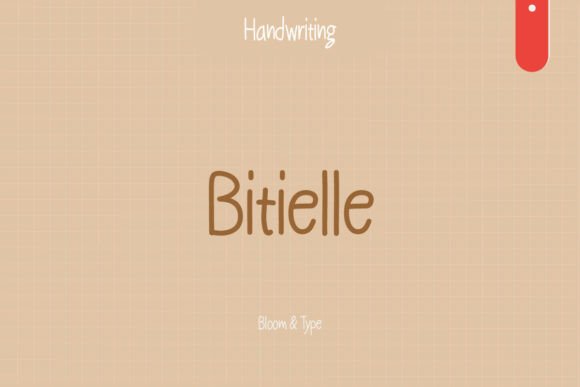
Discover the Charm of Bitielle Font: A Perfect Blend of Simplicity and Warmth
Have you ever been in the middle of a design project, and suddenly, you’re stuck on finding the perfect font? I recall a recent experience where I was working on a branding project for a cozy café, and I just couldn’t find a font that captured the warm and inviting atmosphere I wanted to convey. That’s when I stumbled upon Bitielle Font, and it instantly became my go-to choice. In this article, we’ll dive into the world of Bitielle, exploring its features, uses, and what makes it an excellent addition to your design toolkit.
A Personal Review: What I Love About Bitielle ✨
Bitielle is a charming handwritten font that has won my heart with its simplicity and warm feel. Here are some aspects that I absolutely love:
- ✅ Smooth curves and slightly irregular strokes that create a natural handwritten look
- ✅ Clean, rounded, and easy-to-read letters perfect for everyday design needs
- ✅ Multilingual support, making it suitable for a wide range of creative uses across different languages
While Bitielle is an excellent font, there are a few minor quirks to be aware of:
- 🤔 Limited availability of stylistic alternates, which might not offer as much variation as some designers would like
- ⚠️ Not ideal for very long texts or body content, as it’s best suited for shorter phrases or headings
The Backstory of Bitielle: A Designer’s Inspiration
Bitielle was inspired by the simplicity and warmth of handwritten notes. Its creator aimed to craft a font that feels both modern and approachable, perfect for designs that require a human touch. The name “Bitielle” reflects a blend of personal expression and creative elegance.
Q: What makes Bitielle suitable for branding projects?
A: Bitielle’s smooth curves and warm feel make it perfect for branding projects that require a friendly and approachable tone. Its clean design ensures versatility across various applications.
Q: Does Bitielle support multilingual languages?
A: Yes, Bitielle includes multilingual support, allowing you to use it for designs in various languages.